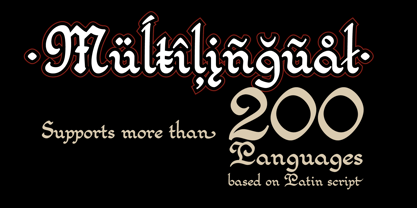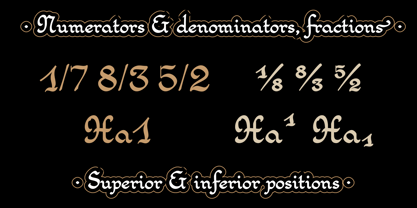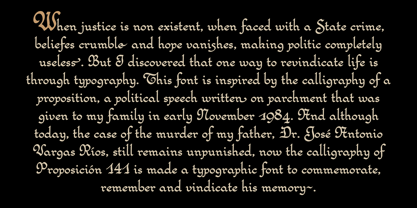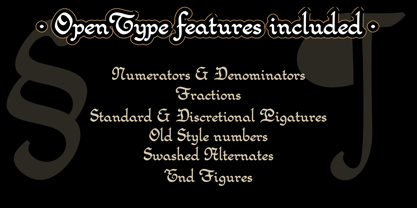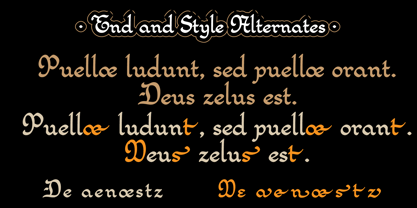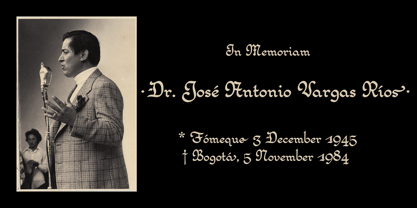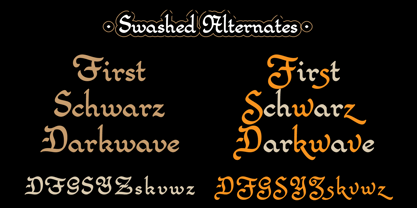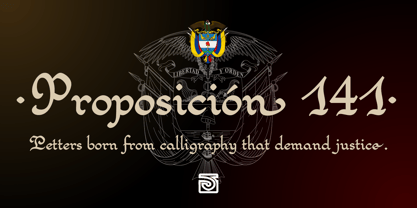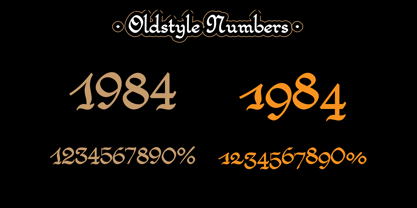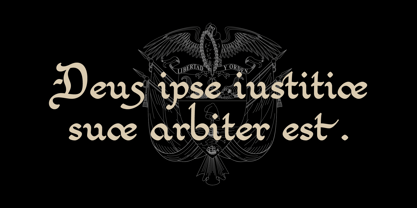
Proposicion 141
The Proposicion 141 Font Family was designed by John Vargas Beltrán and published by JVB Fonts. Proposicion 141 contains 1 styles.
Inspired by the elegant calligraphy of a parchment diploma issued by the Colombian House of Representatives in 1984, Proposición 141 honors Dr. José Antonio Vargas Ríos, who was murdered in a State crime that remains unpunished.
Originally written with a broad nib pen, this ornamental calligraphic typeface blends the grace of historical handwriting with modern OpenType features, including ligatures, stylistic alternates, decorative initials, and terminal forms.
Perfect for certificates, diplomas, commemorative publications, invitations, and refined editorial work, Proposición 141 is more than a font—it is a tool for design, a vessel for memory, and a quiet call for justice.